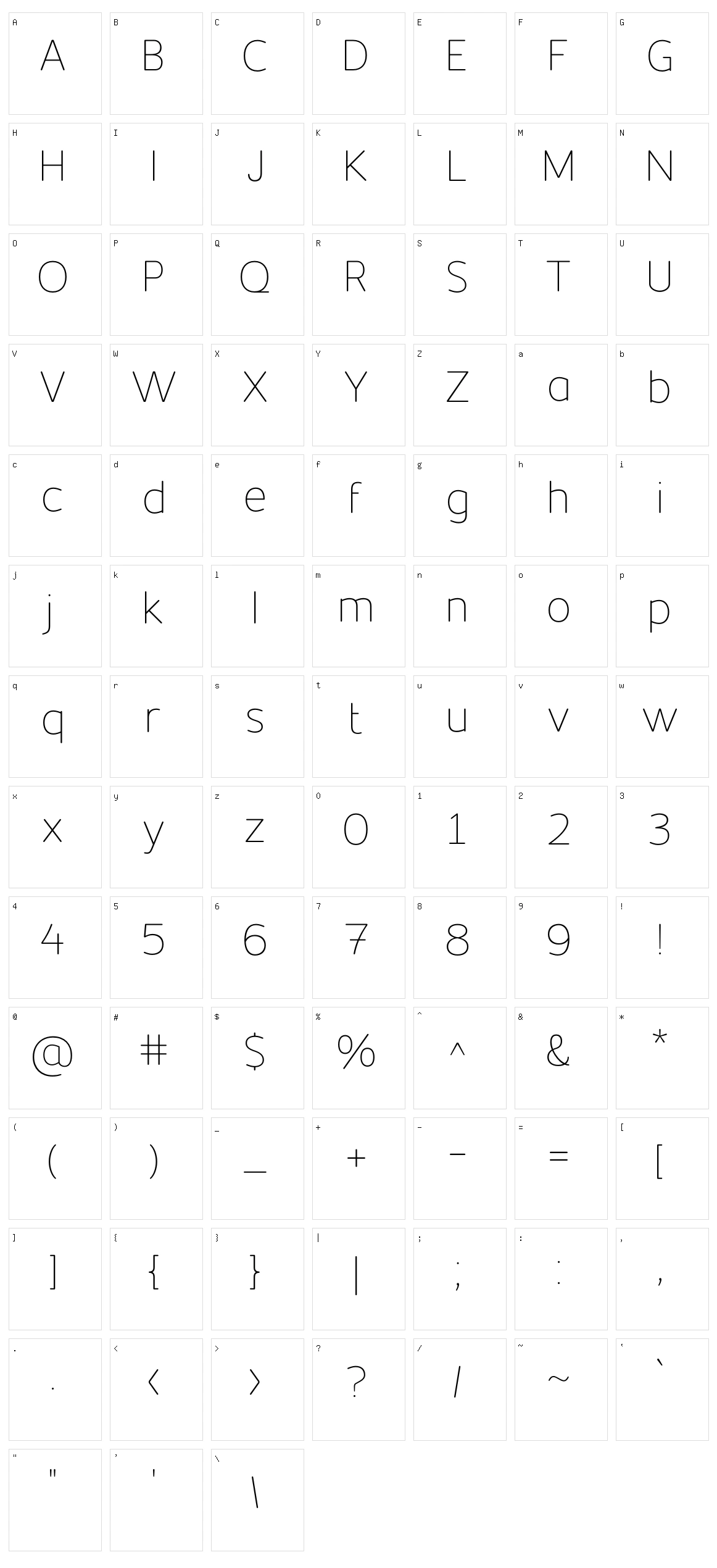
The free font Yuruy is carefully designed by Lerima, showcasing a thoughtful balance of creativity and usability and falls under the Sans serif font style. When you download the ZIP file, it contains only 33.65 KB of font files, making it lightweight and quick to download. Please review the license details below to understand permitted usage and distribution rights. If license information is not available, we recommend using this font for personal projects only or contacting the author directly for commercial usage permissions.